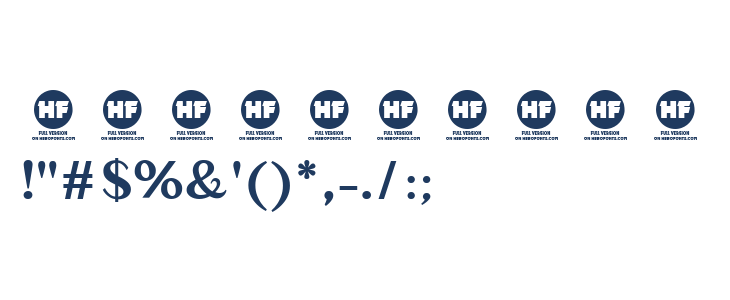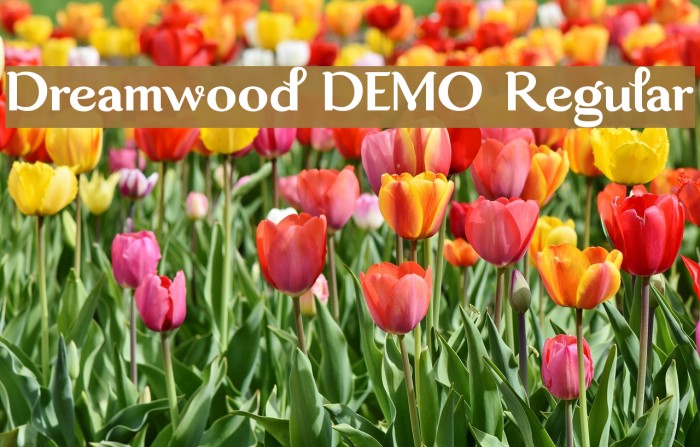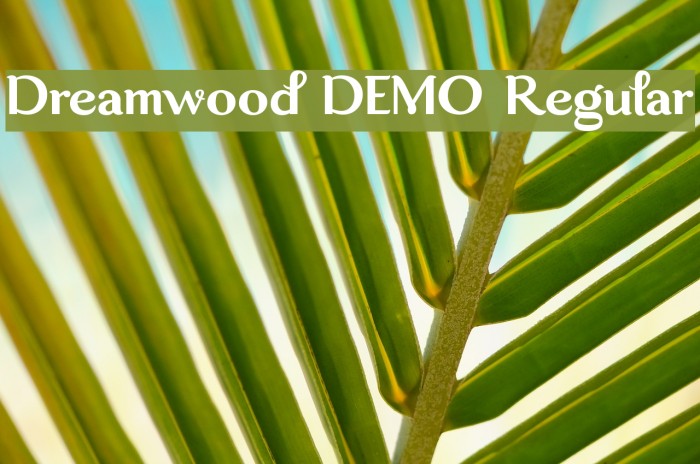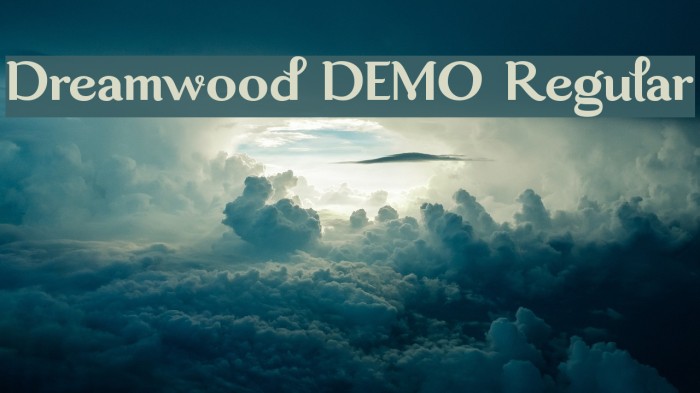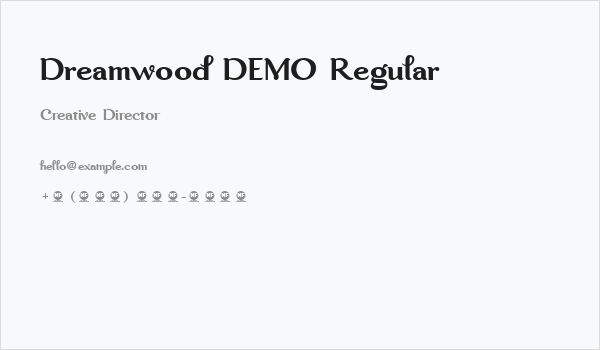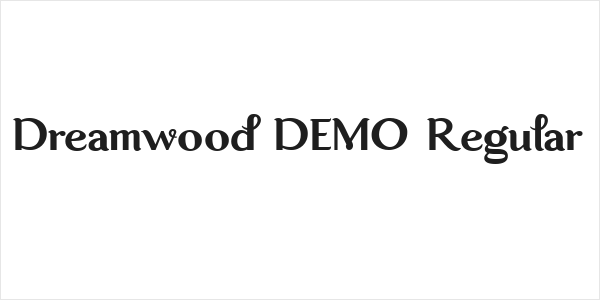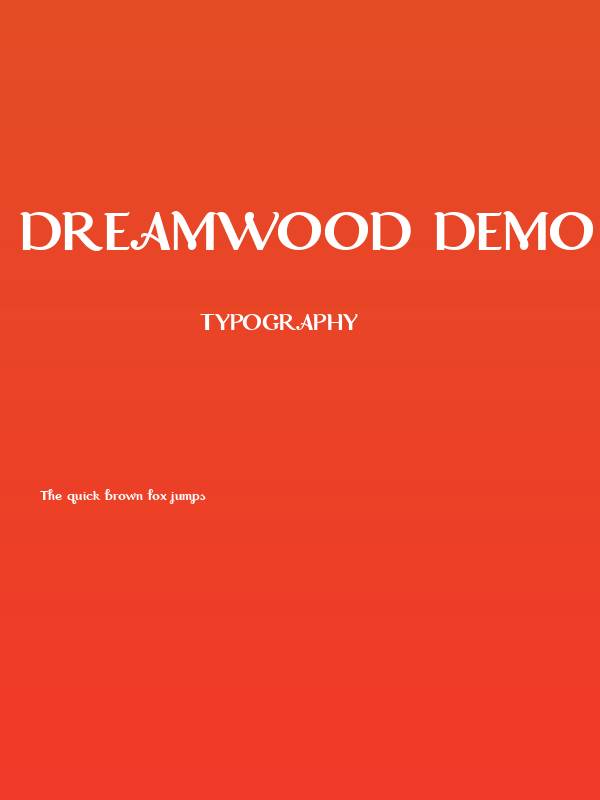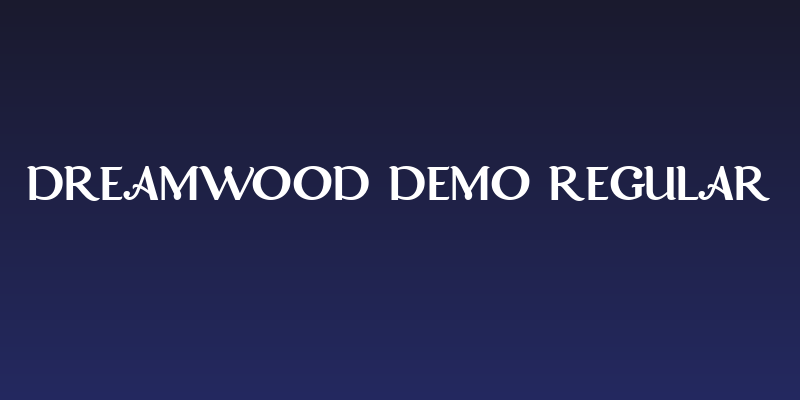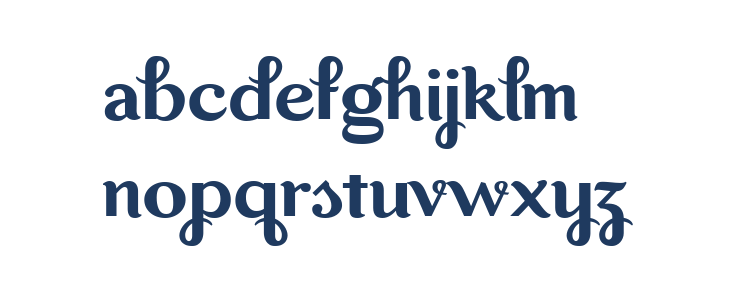
Dreamwood DEMO Regular Font
Dreamwood DEMO Regular Description
This font features a unique blend of classic and decorative elements, characterized by its bold and flowing letterforms. The uppercase letters exhibit a strong presence with elegant curves and subtle flourishes, while the lowercase letters maintain a consistent style with rounded edges and distinctive tails. The numerals and special characters complement the overall aesthetic, offering a cohesive look. The font's design is both eye-catching and versatile, making it suitable for a variety of creative projects.
| Proposed Projects | Ideal for branding, packaging, invitations, and headlines where a touch of elegance and uniqueness is desired. |